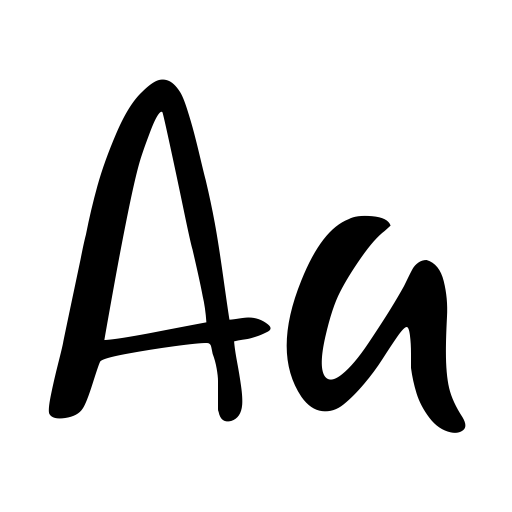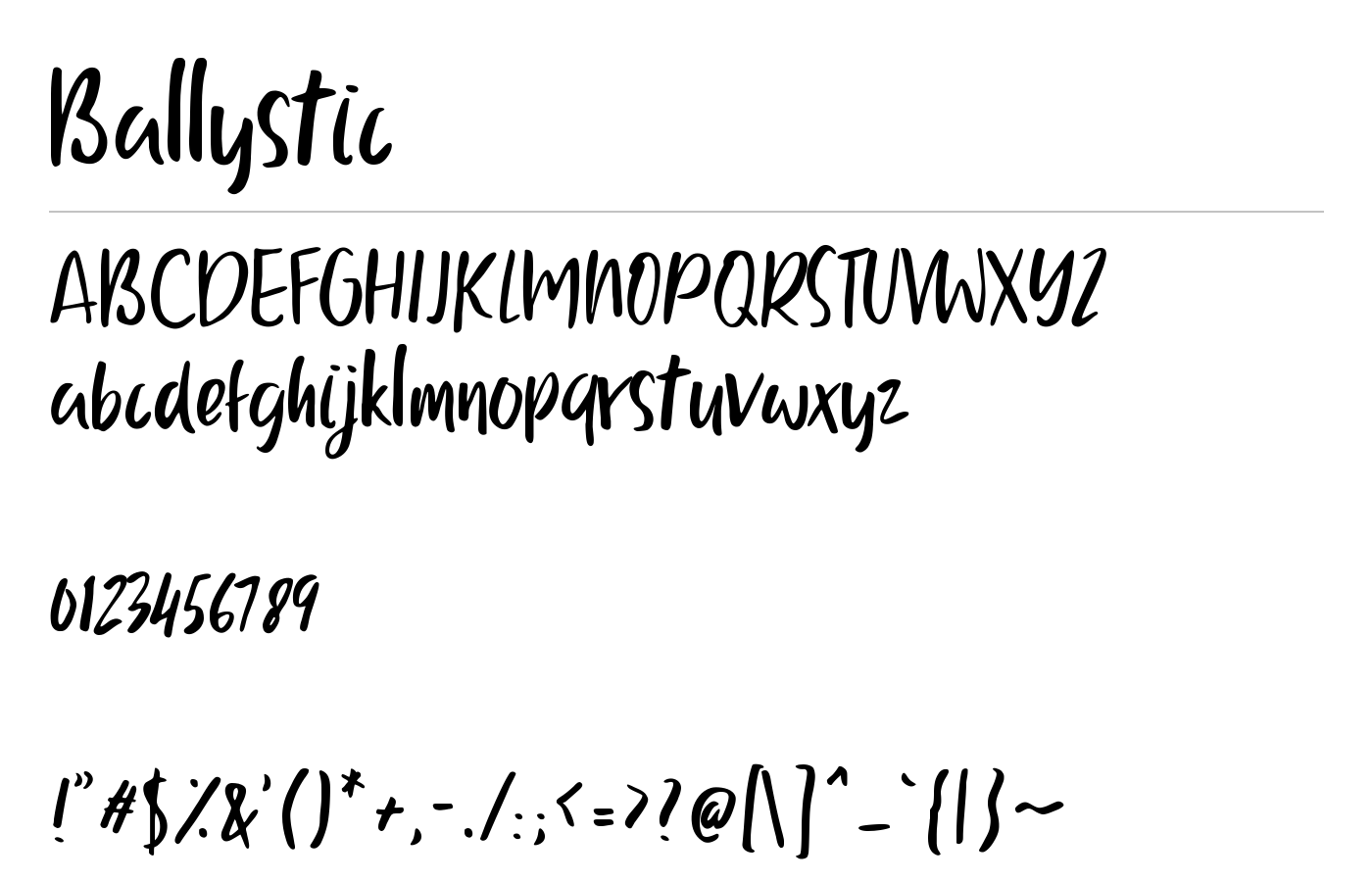
Ballystic is a lively, handwritten script font with a casual and friendly vibe. Its smooth, slightly irregular strokes and tall, narrow letterforms give it an approachable, energetic feel, perfect for creative branding, informal invitations, and playful headlines. This font works well where a personal, warm touch is needed to engage audiences with a modern, handwritten charm.
Ballystic Font
About Ballystic Font